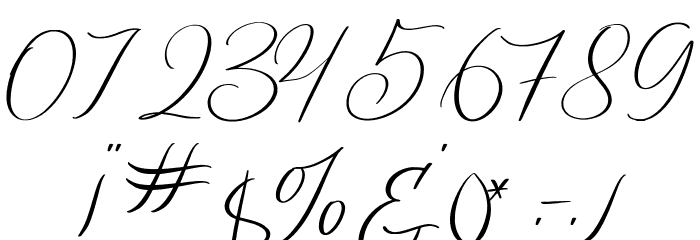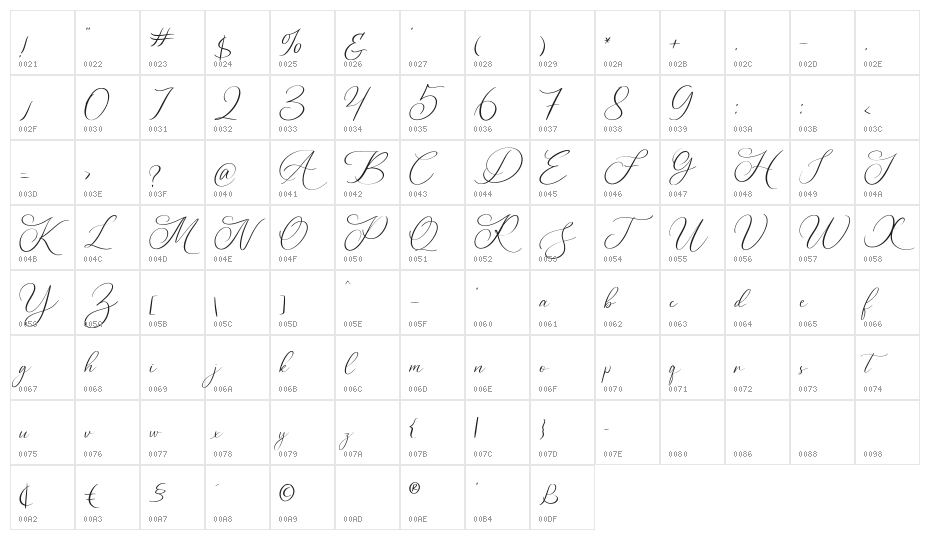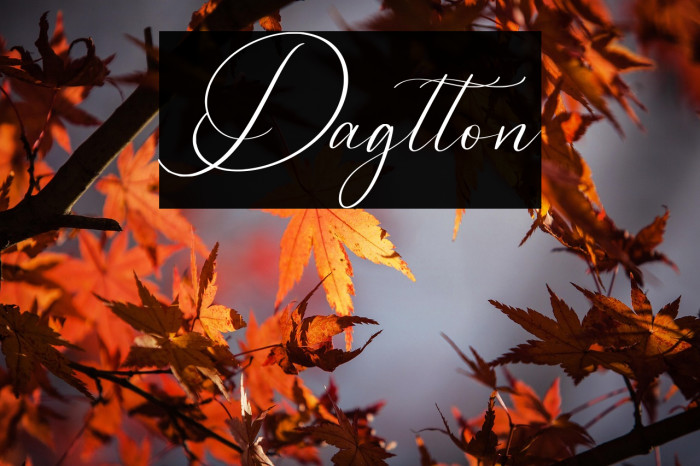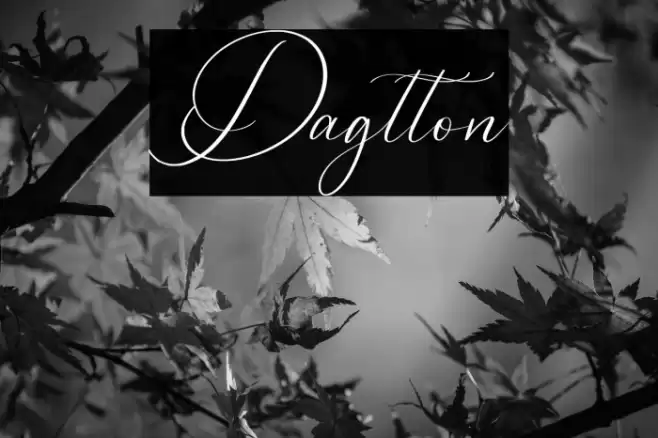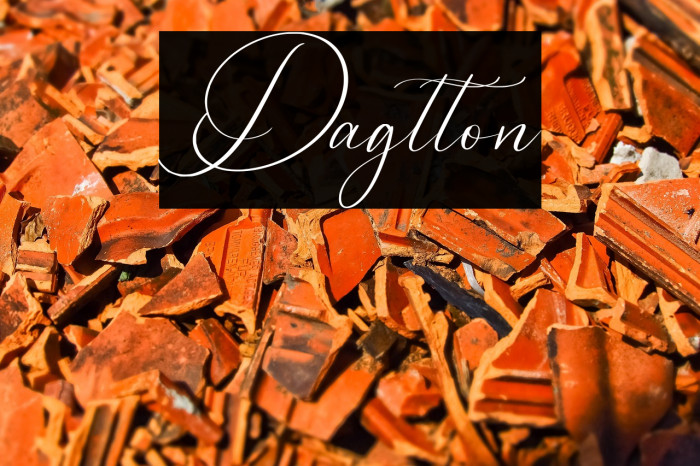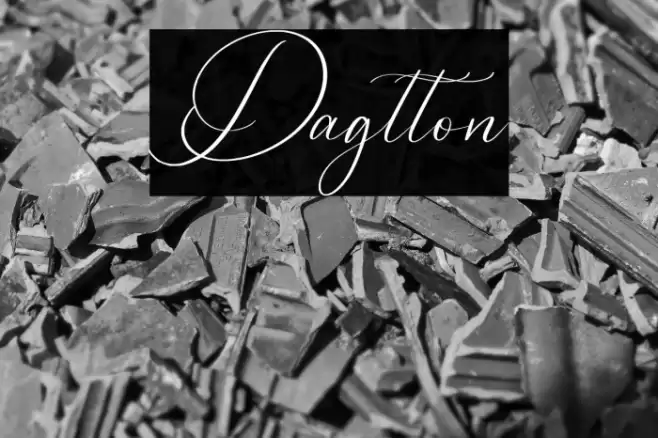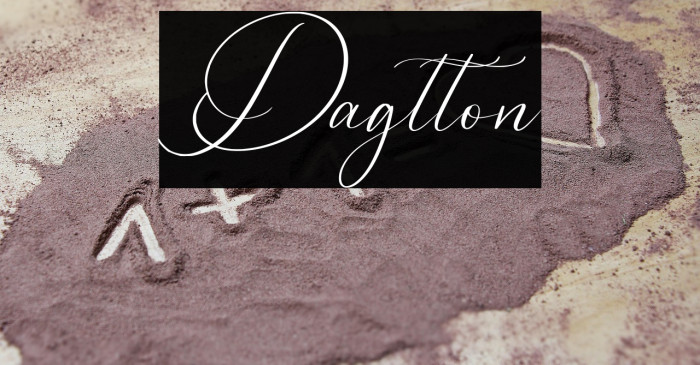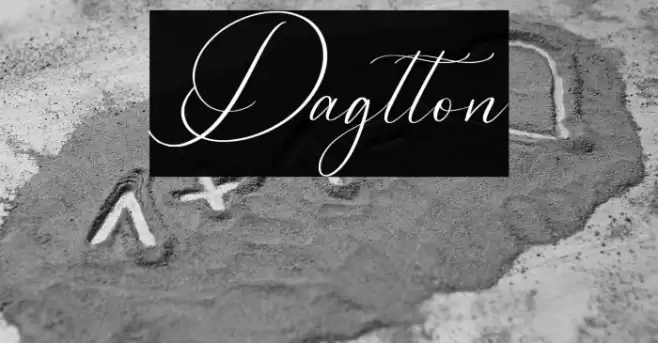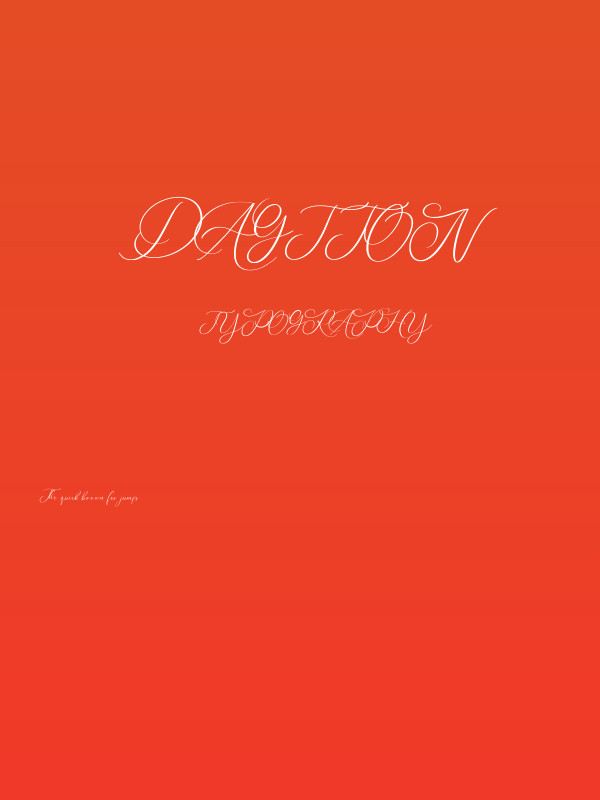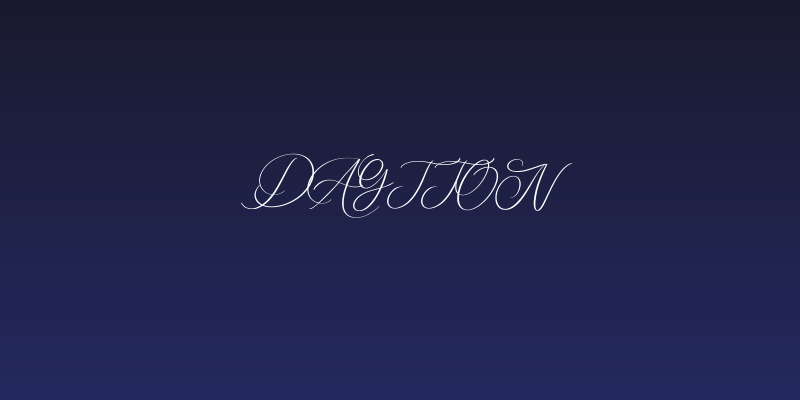
Dagtton Font
Dagtton Description
This elegant script font features a flowing, cursive style with intricate loops and swashes, giving it a sophisticated and artistic appearance. The uppercase letters are particularly ornate, with extended flourishes that add a touch of grandeur. The lowercase letters maintain a consistent flow, enhancing readability while retaining the decorative essence. The numerals and special characters are designed to match the overall aesthetic, ensuring a cohesive look across all text elements. This font is perfect for projects that require a touch of elegance and sophistication.
Overall StyleElegant, Decorative
Use CaseHeadlines, Invitations, Branding
Proposed ProjectsIdeal for wedding invitations, elegant branding, greeting cards, and luxury product packaging.